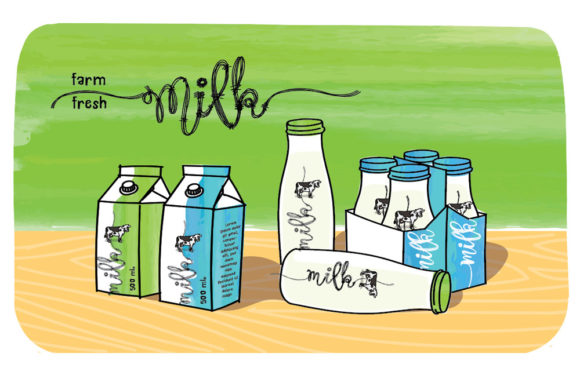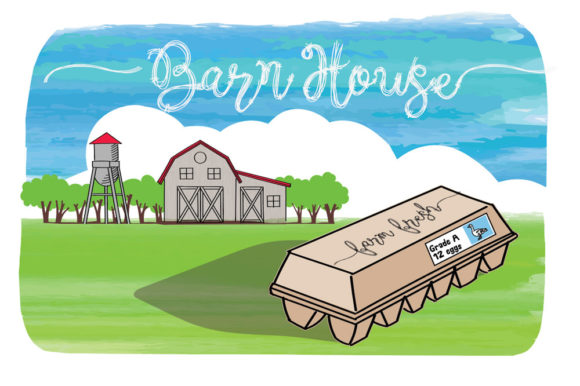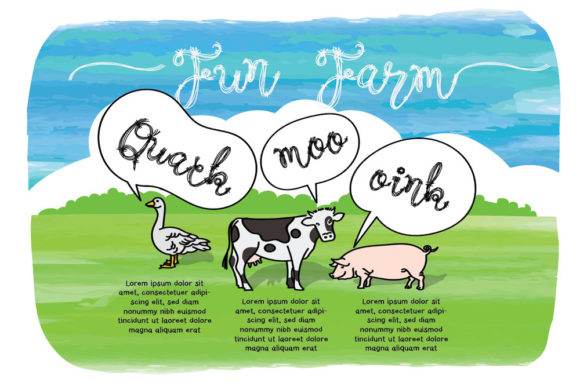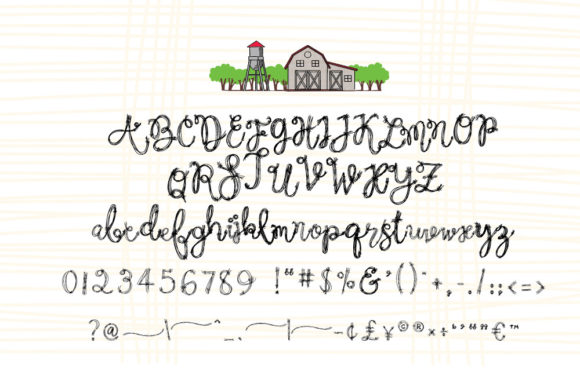
Discover the Unique Charm of Haystack Font: Elevate Your Designs with a Cool and Decorative Twist
Are you on the hunt for a font that adds a touch of personality and whimsy to your projects? Look no further than the Haystack Font! This cool looking, unique, and decorative font is perfect for crafters, digital designers, and anyone looking to add a bit of flair to their presentations, greeting cards, and more.
What Makes Haystack Font So Special?
Haystack Font stands out from the crowd with its distinctive and eye-catching design. Its unique style makes it an excellent choice for a variety of projects, from crafting and scrapbooking to digital designing and creating engaging presentations. The font’s decorative nature ensures that your work will have a personalized touch that captures attention.
Perfect for Various Projects
Whether you’re a crafter working on a handmade project, a digital designer creating engaging content, or someone who loves making personalized greeting cards, Haystack Font is an ideal choice. Its versatility means it can be used in a multitude of contexts, ensuring your creations always stand out.
- Crafting and Scrapbooking: Add a personal touch to your handmade crafts and scrapbook pages with the unique and decorative style of Haystack Font.
- Digital Designing: Elevate your digital projects with a font that breaks the mold of traditional designs.
- Presentations: Make your presentations more engaging and memorable with a font that commands attention.
- Greeting Cards Making: Create one-of-a-kind greeting cards that will surely delight the recipient.
Why Choose Haystack Font?
Choosing Haystack Font for your projects comes with numerous benefits. Here are a few reasons why it’s becoming a favorite among designers and crafters:
- Unique Style: Its distinctive design ensures your projects won’t look like anything else out there.
- Versatility: Suitable for a wide range of projects, from digital to physical.
- Easy to Use: Despite its complex look, Haystack Font is easy to integrate into your projects, making it accessible for users of all skill levels.
- High Readability: While it has a decorative style, it maintains a level of readability that makes it suitable for both headings and body text.
Tips for Using Haystack Font Effectively
To get the most out of Haystack Font, consider the following tips:
- Mix and Match: Combine Haystack Font with simpler fonts to create visual interest and hierarchy in your designs.
- Use for Headings: Its decorative nature makes it perfect for headings and titles, but consider using a simpler font for body text.
- Experiment with Colors: Play around with different colors to find the perfect match that enhances the font’s unique style.
- Keep it Simple: While Haystack Font is decorative, too much complexity can be overwhelming. Balance it with clean design elements.
Haystack Font is a game-changer for anyone looking to add a cool, unique, and decorative touch to their projects. Its versatility, readability, and distinctive style make it an excellent choice for a wide range of applications. Whether you’re a professional designer or a hobbyist crafter, Haystack Font is sure to elevate your work and make it stand out. So, why settle for ordinary when you can make your projects extraordinary with Haystack Font?